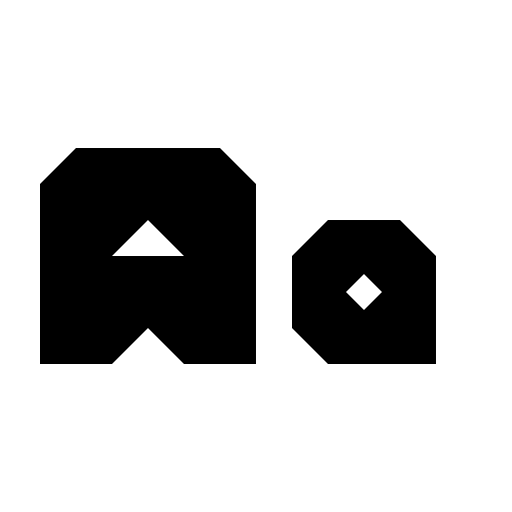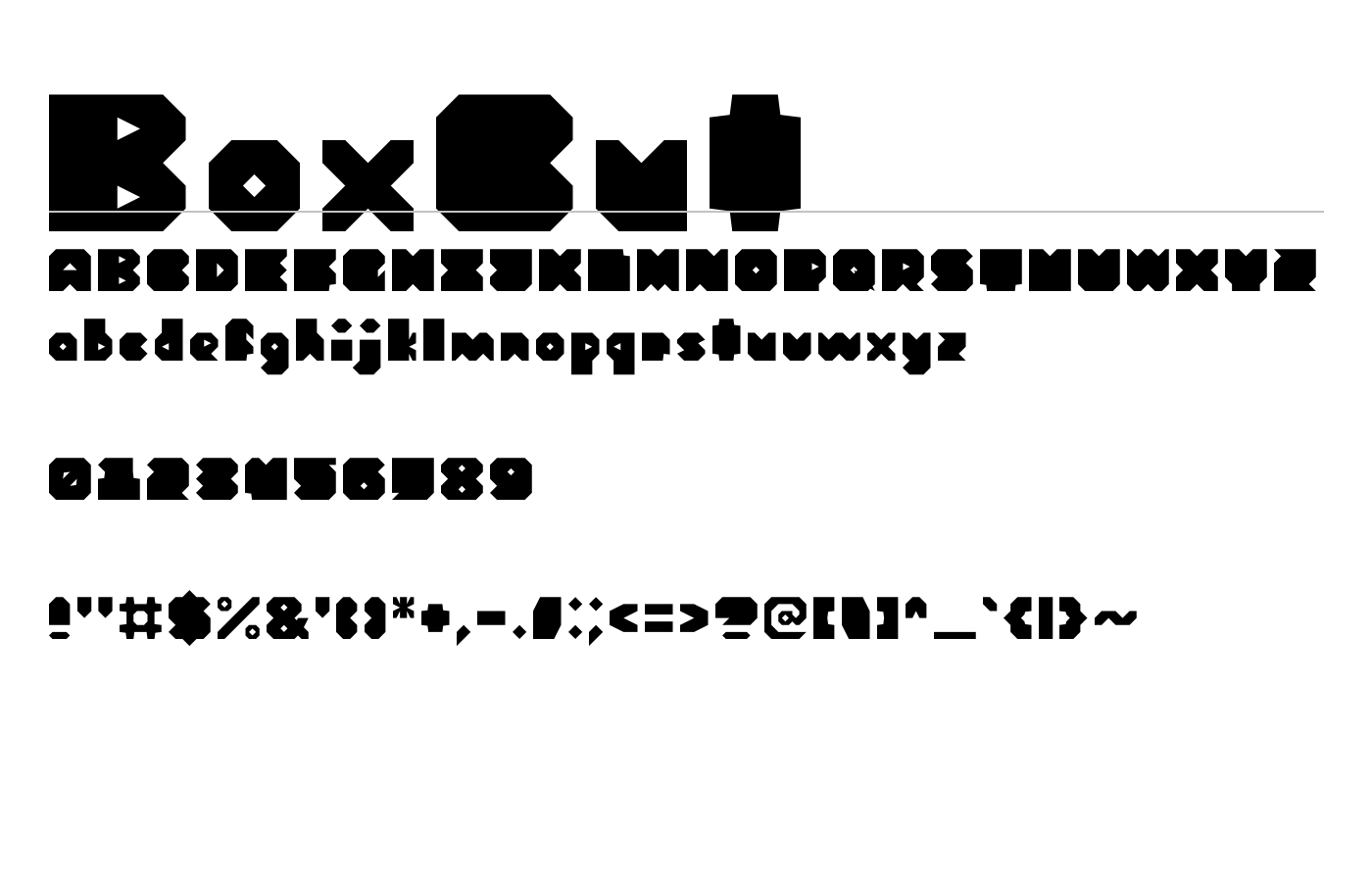
BoxCut is a bold, geometric sans serif font with a distinctive blocky design that features sharp, angular cuts giving it a modern, industrial feel. Its heavy weight and compact, squared letterforms make it highly impactful and well-suited for attention-grabbing headlines, logos, or branding that aims to convey strength and edginess. This font works best in creative and contemporary contexts where a unique, futuristic aesthetic is desired.
BoxCut Font
About BoxCut Font